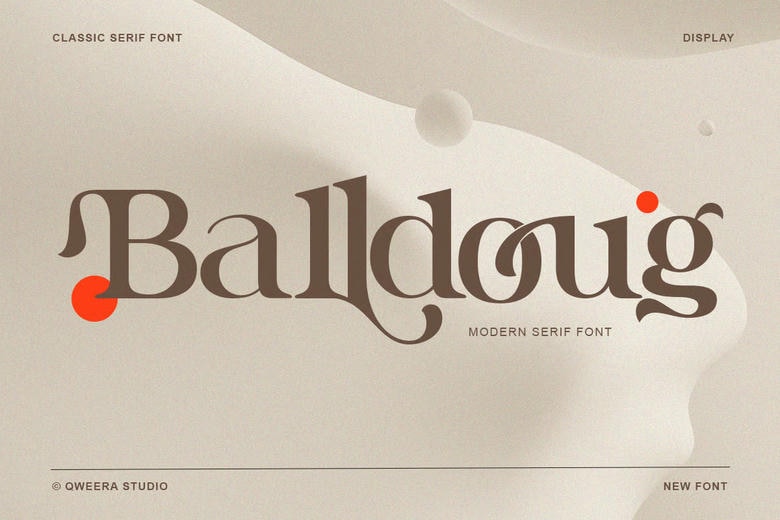
Balldoug Font
Balldoug is a contemporary serif with beautiful contrast and flowing round shapes and crafty ligatures. Balldoug is dedicated to the looks and flair through each letter. The small but evident retro references, the sleek terminals, and the exceptional ligature mixes make it an excellent option in the case of a sophisticated creative project or a company.
Such a marvel would be absolutely perfect in a designer, who wants to have a classic grace with a sense of forward thinking. Ideal to brand identities, products office, editorials or web typography, Balldoug is a kind of clear and elegant type to every use.
Balldoug Serif Font